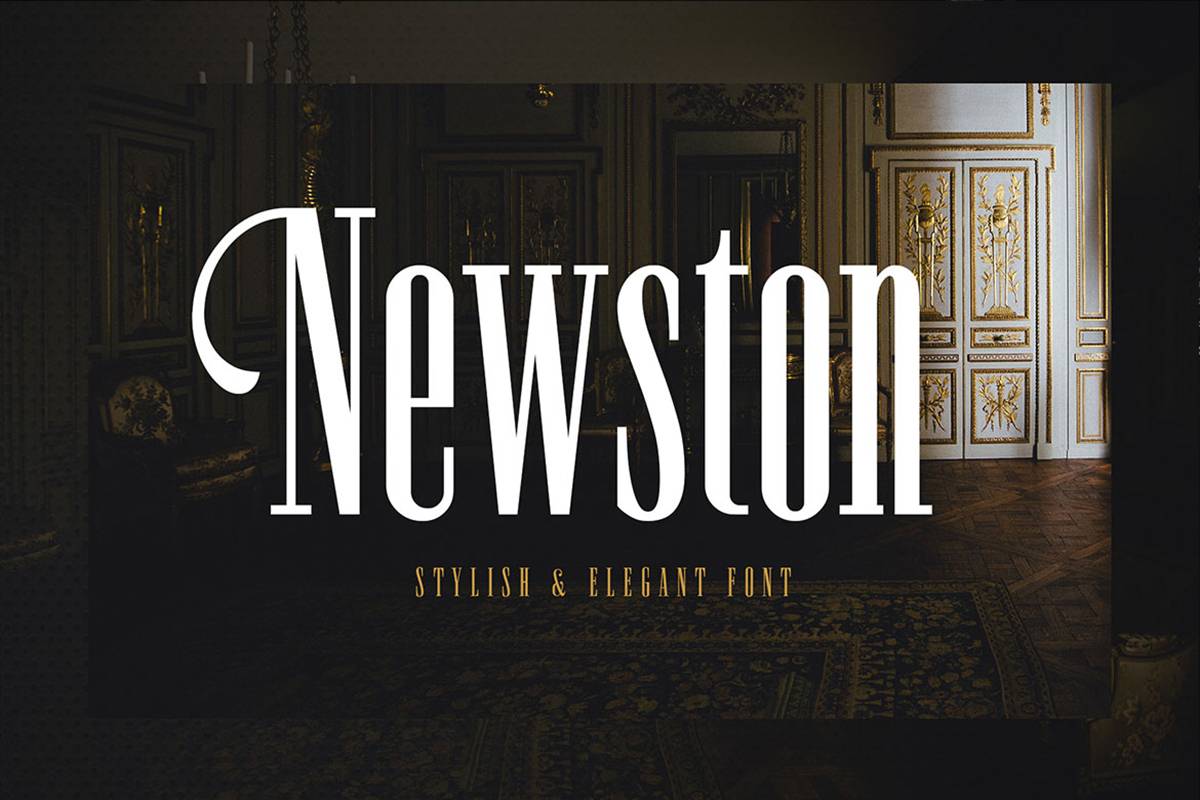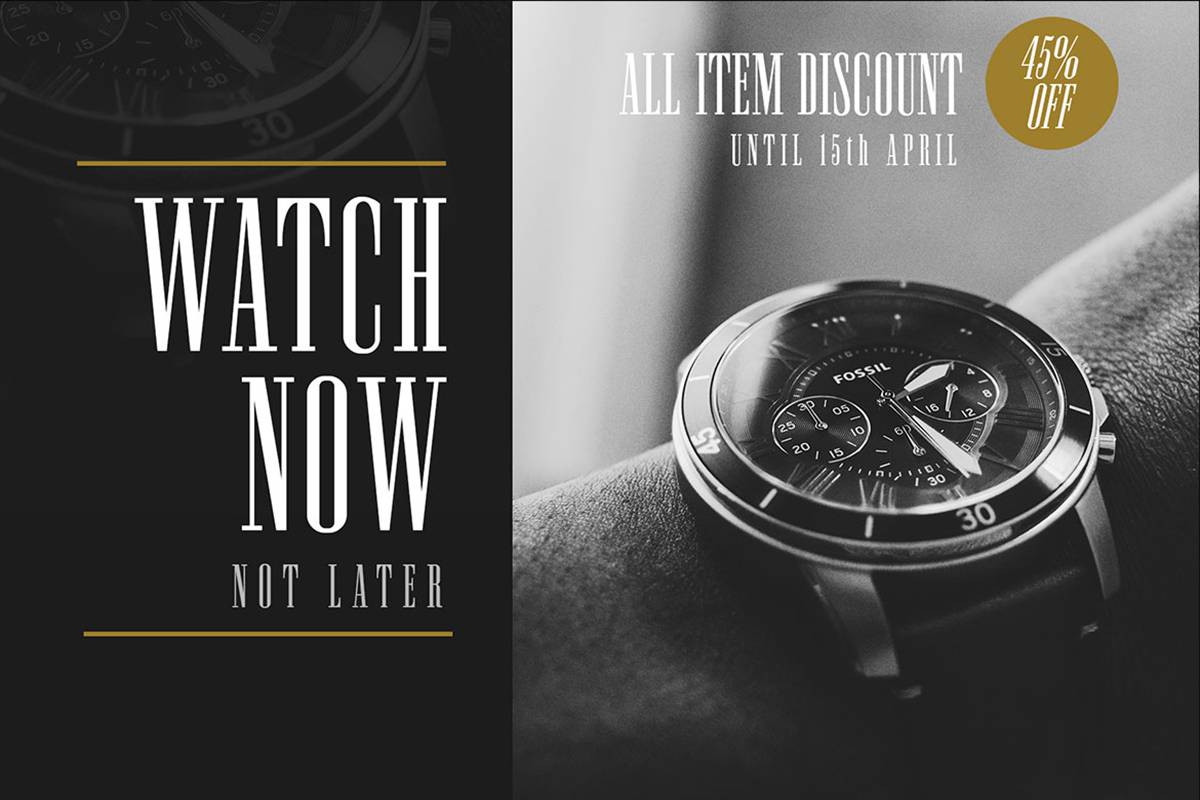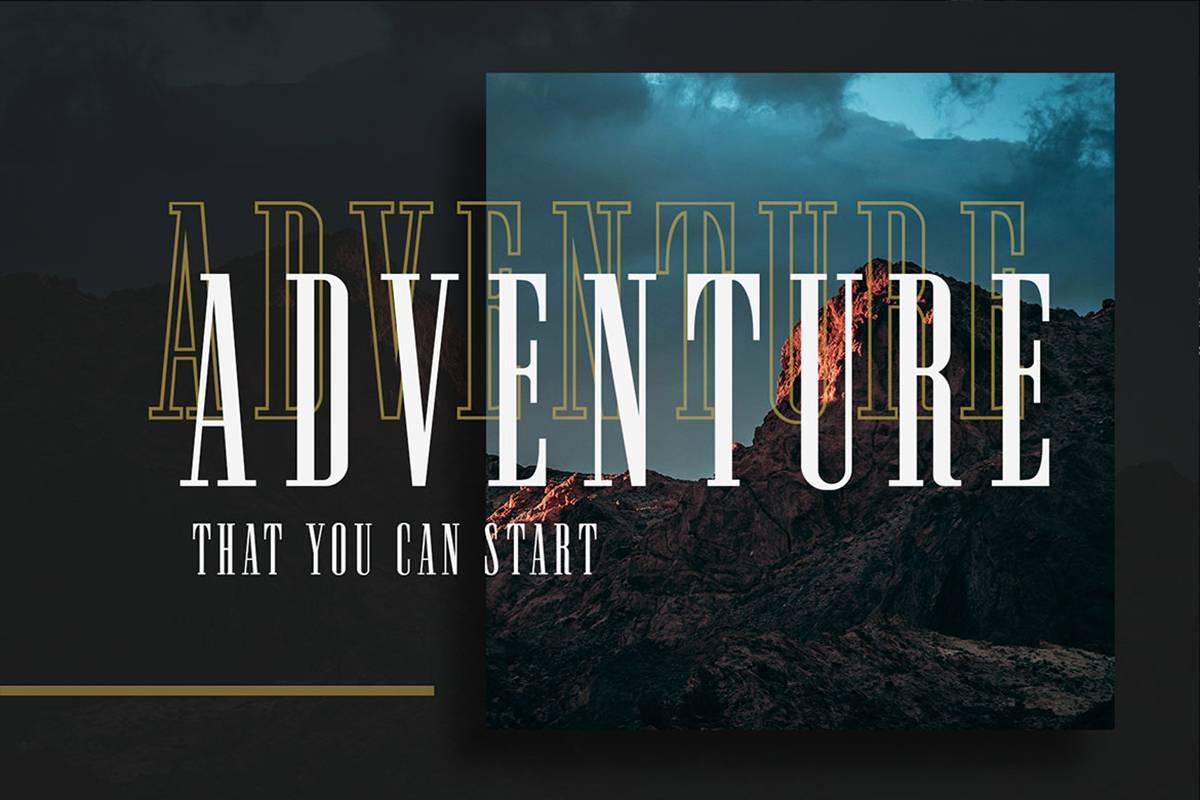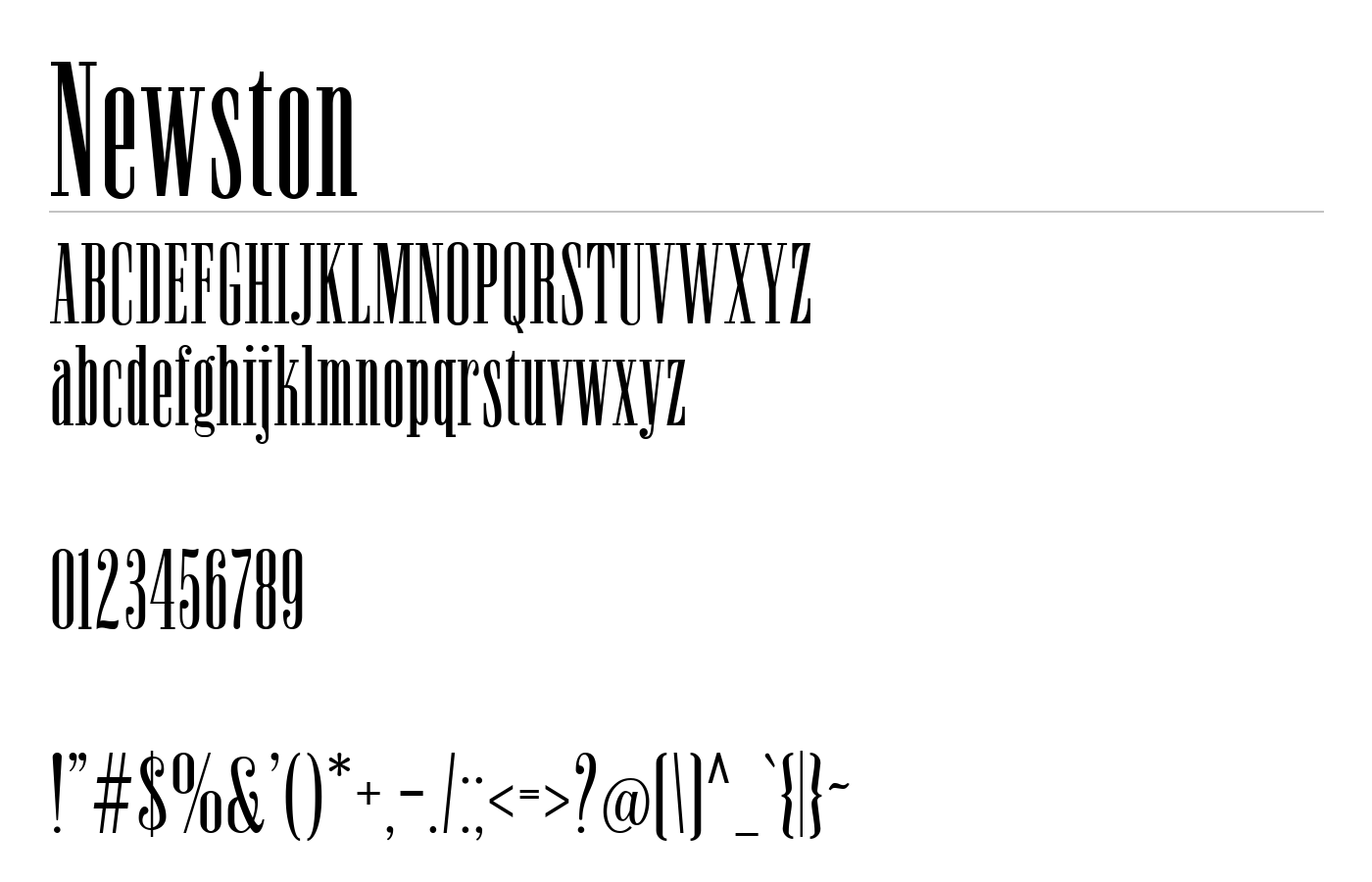
Newston is a condensed serif font that features a high contrast between thick and thin strokes, giving it a striking and elegant appearance. Its narrow letterforms and tall x-height create a refined, vintage-inspired style that works well for headlines, logos, and editorial design where a sophisticated and bold statement is desired. This font is ideal for fashion branding, luxury packaging, and any project seeking a classic yet distinctive touch.
Newston Font
About Newston Font
| Font family | Newston Font |
| Release date | 2019-03-05 |
| Designer | R A M Z |